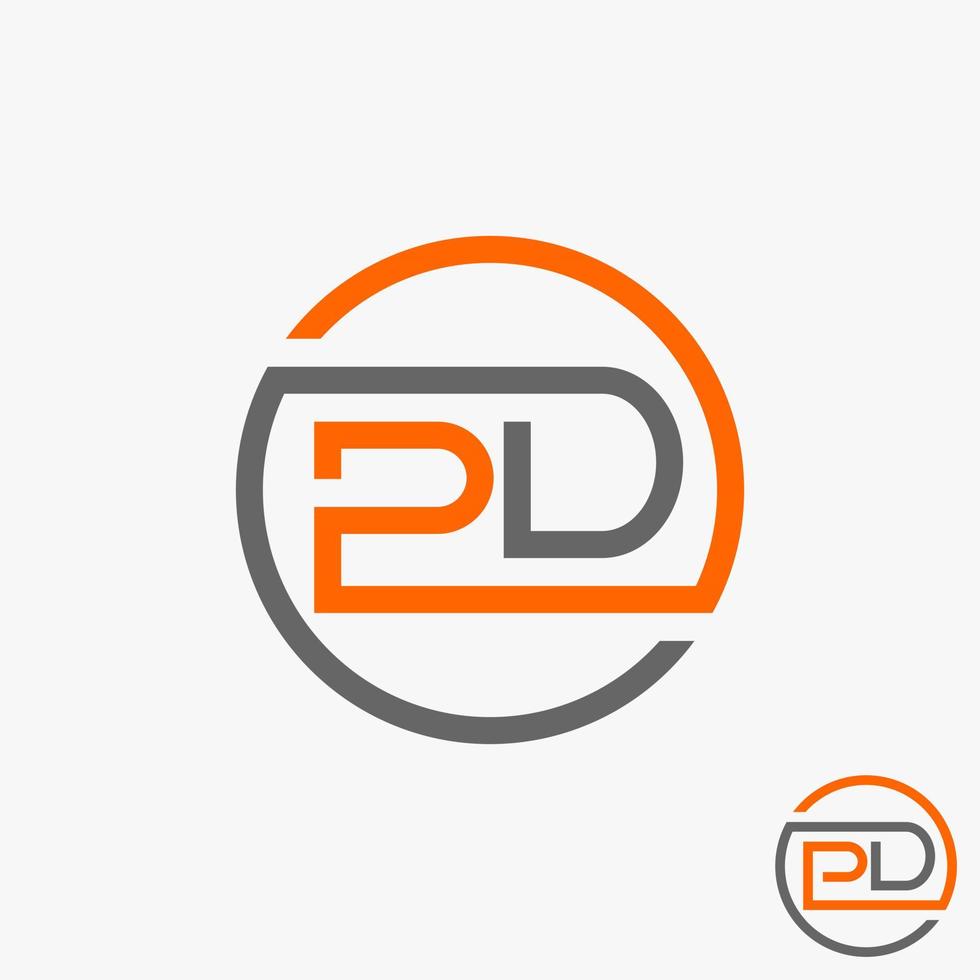
Simple and unique letter or word PD sans serif line cut font on circle square ellipse image graphic icon logo design abstract concept vector stock. used as symbol related to initial or monogram Pro Vector